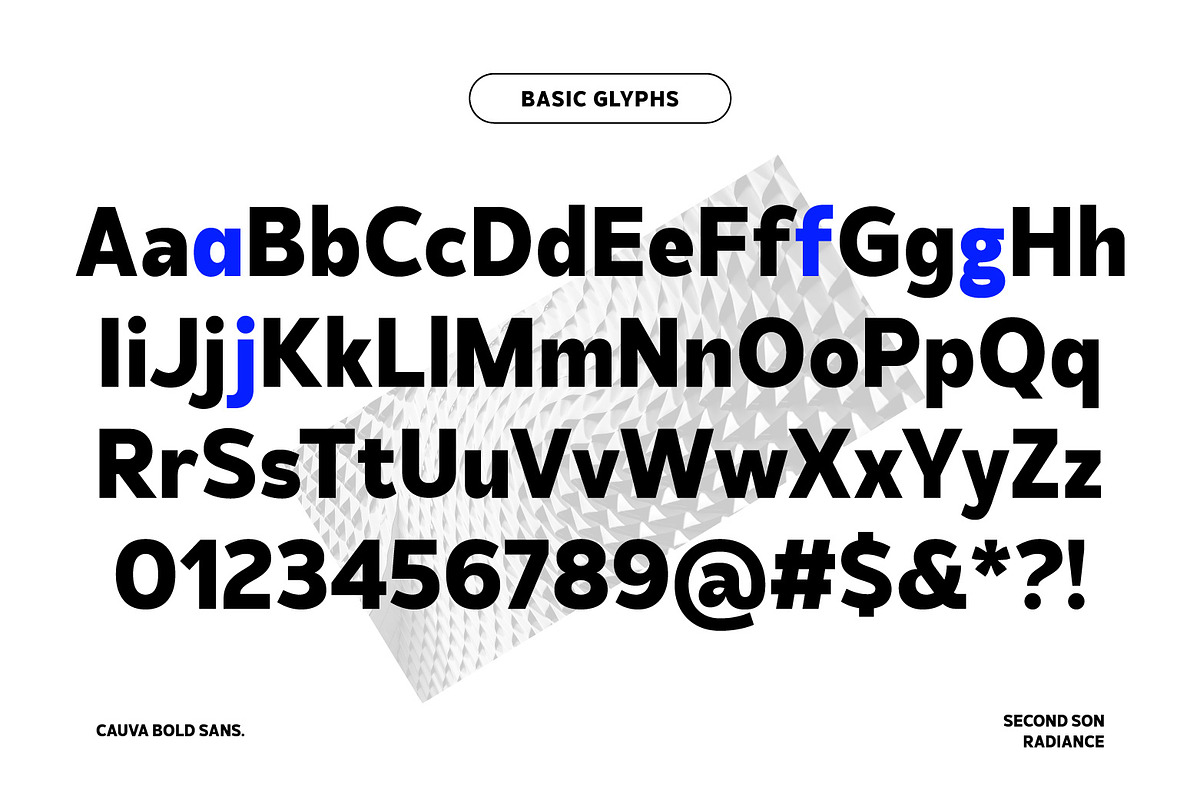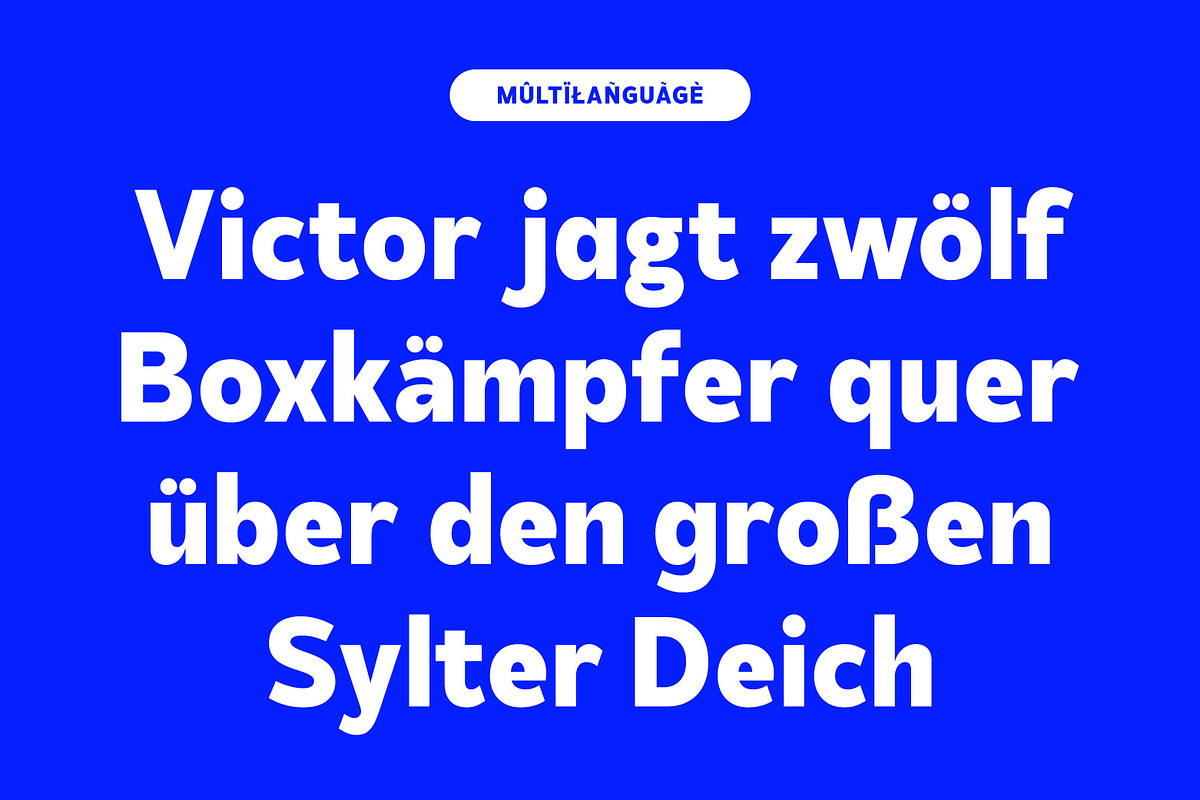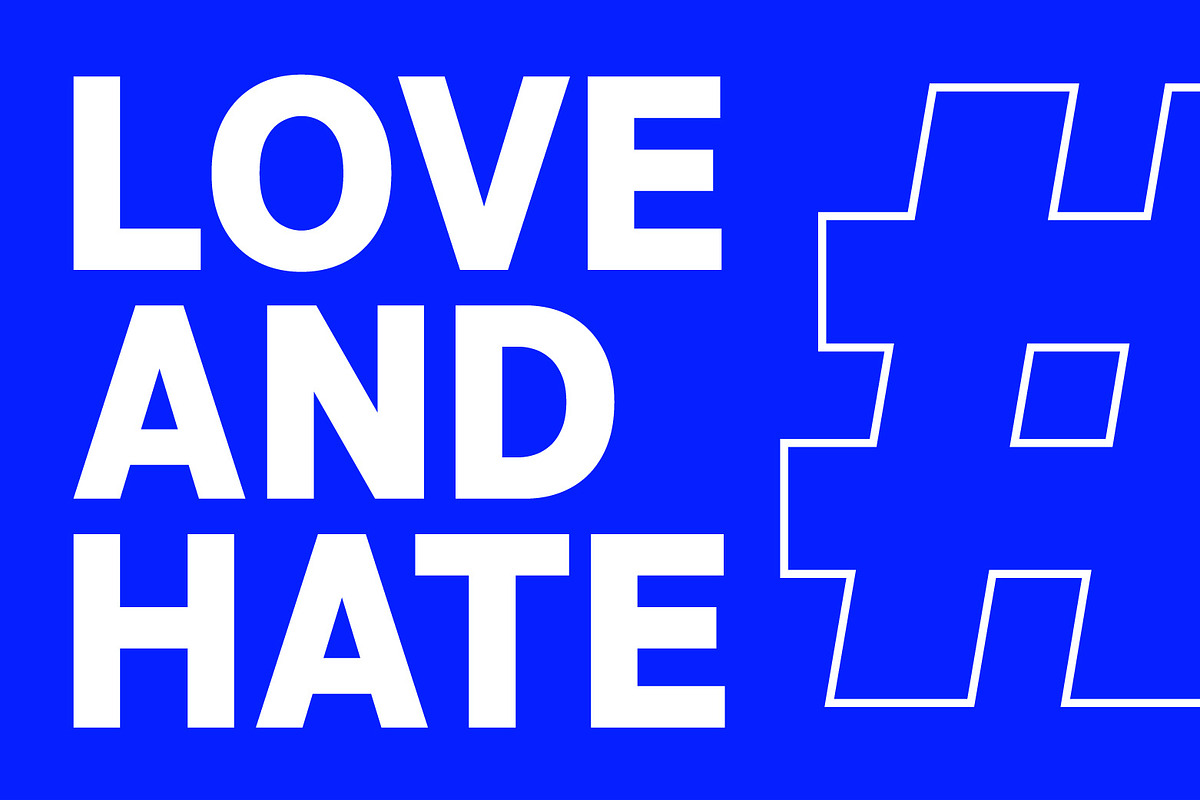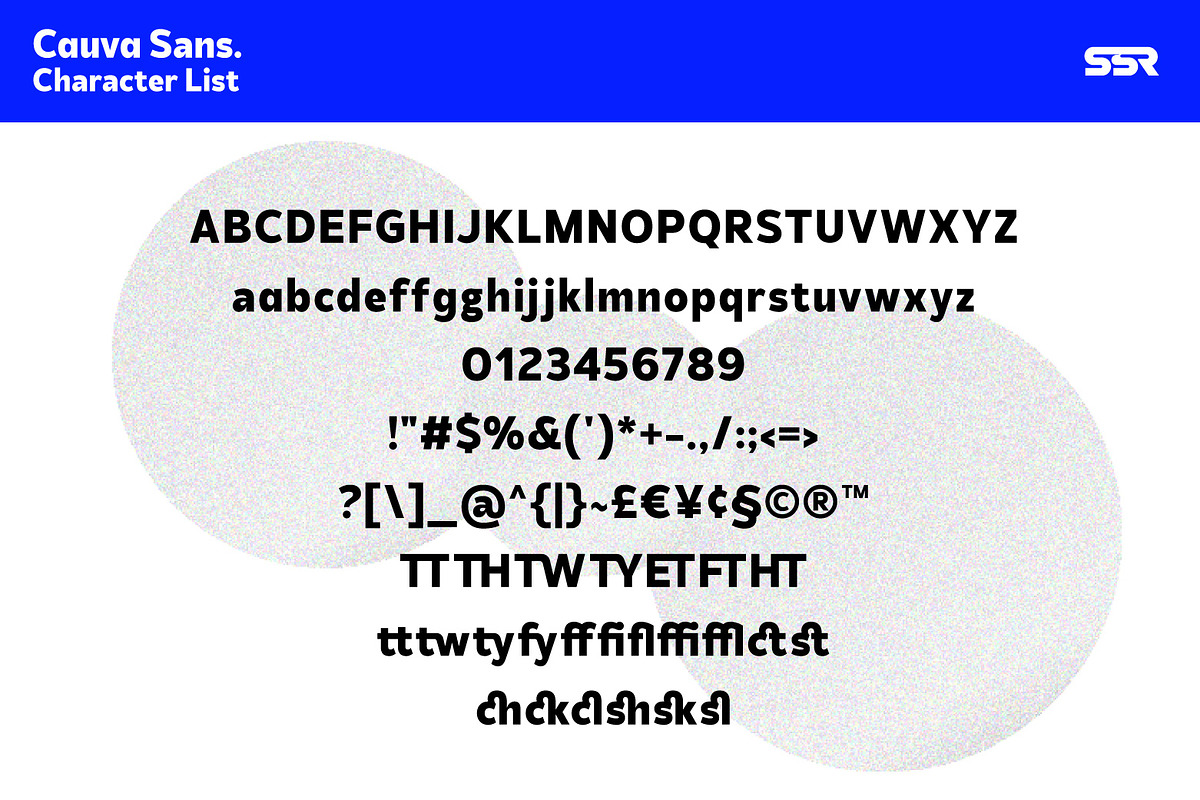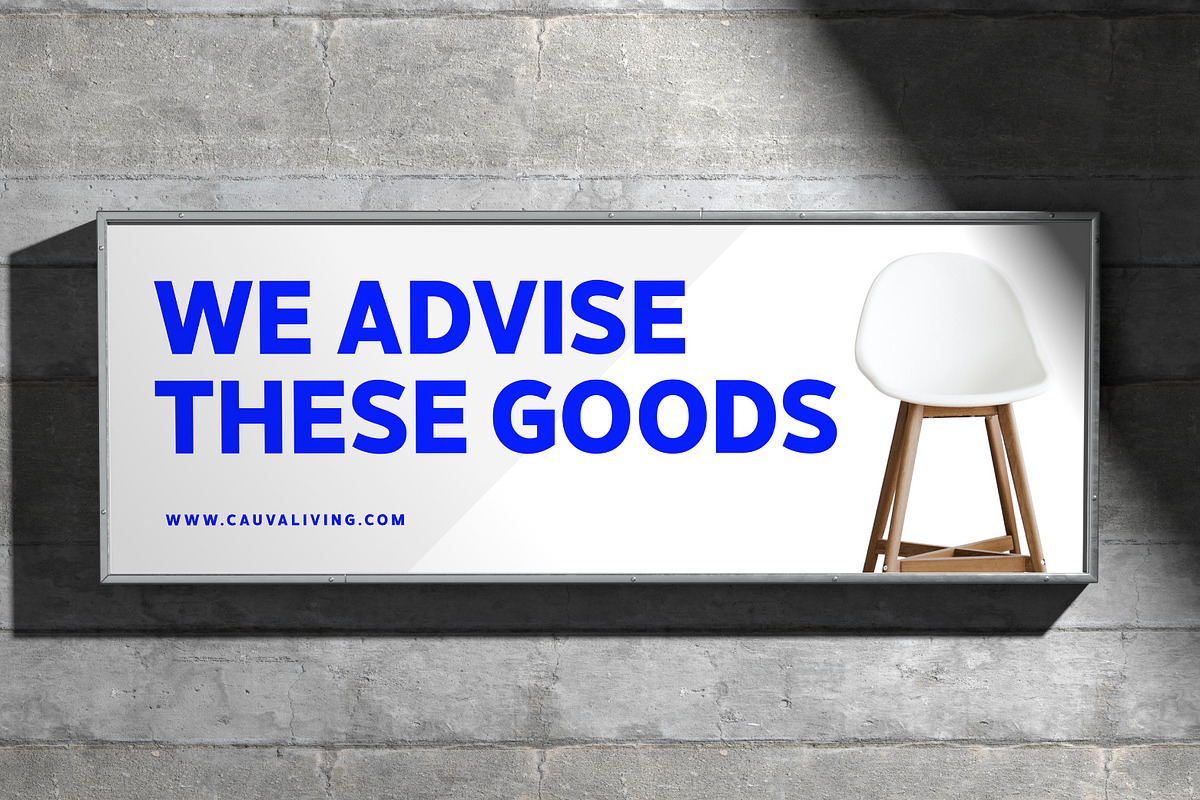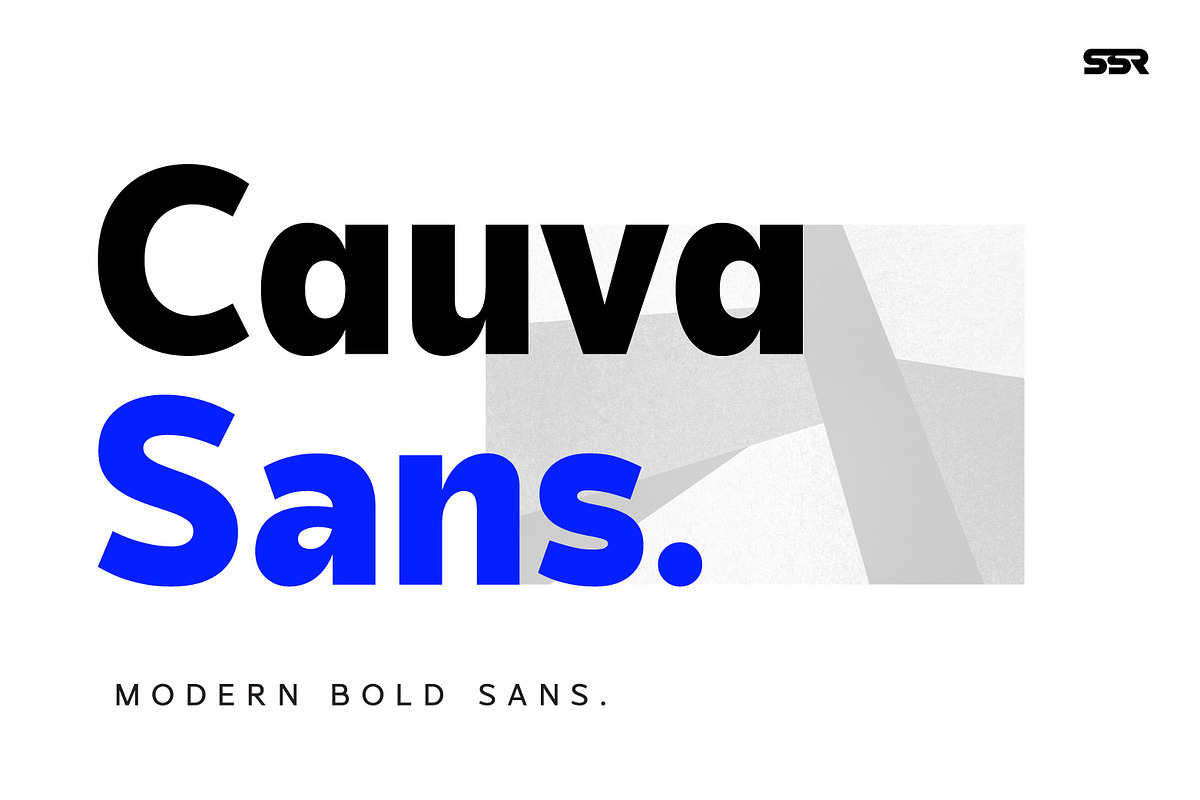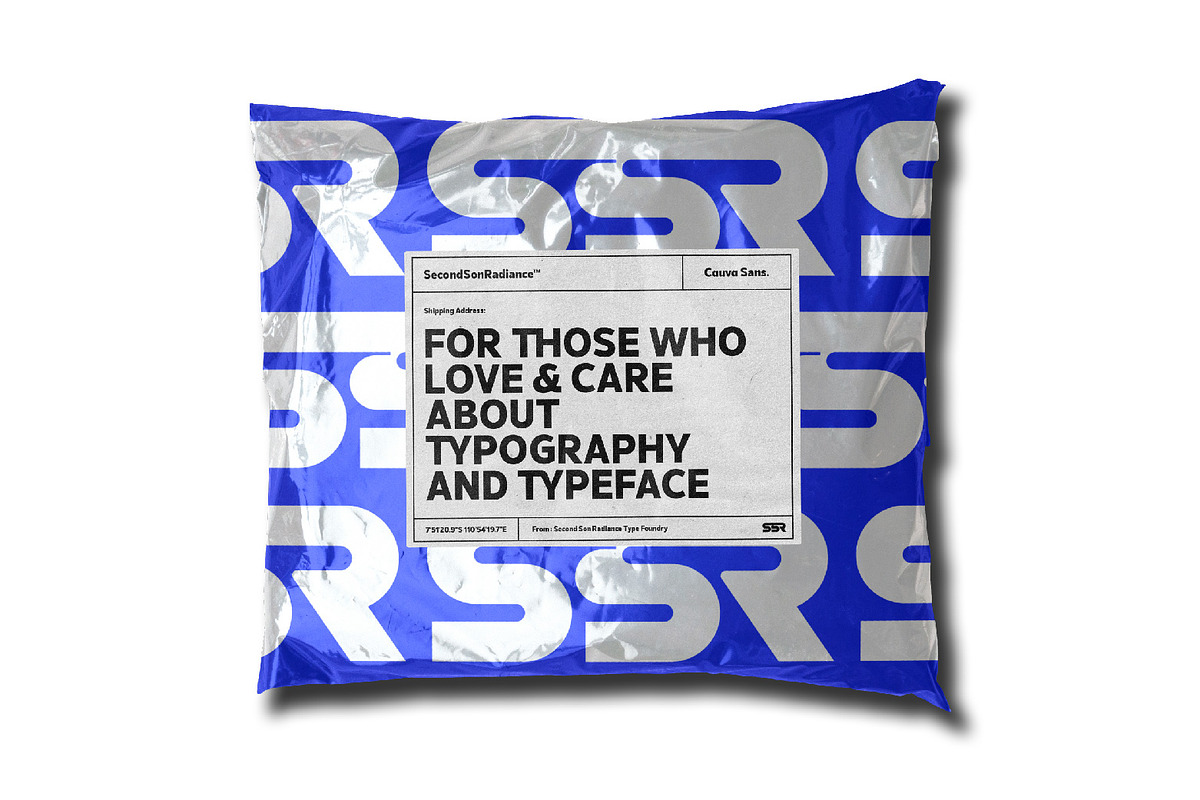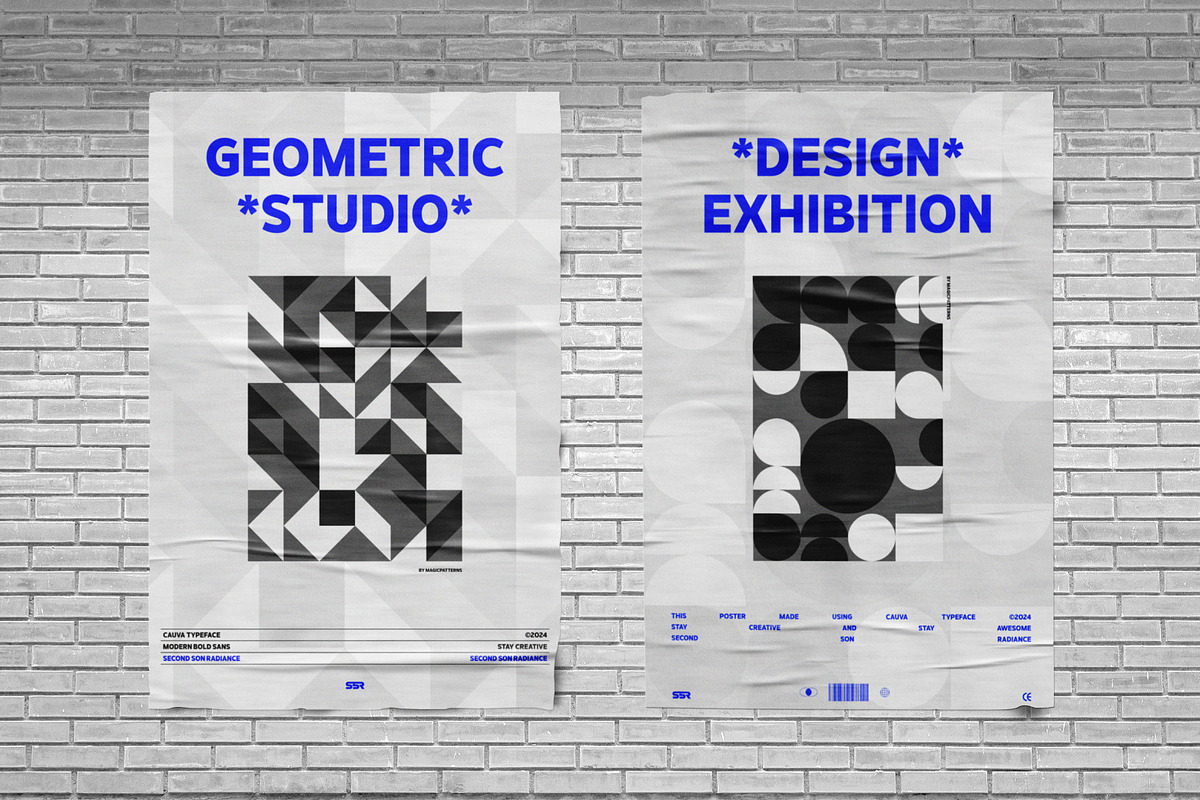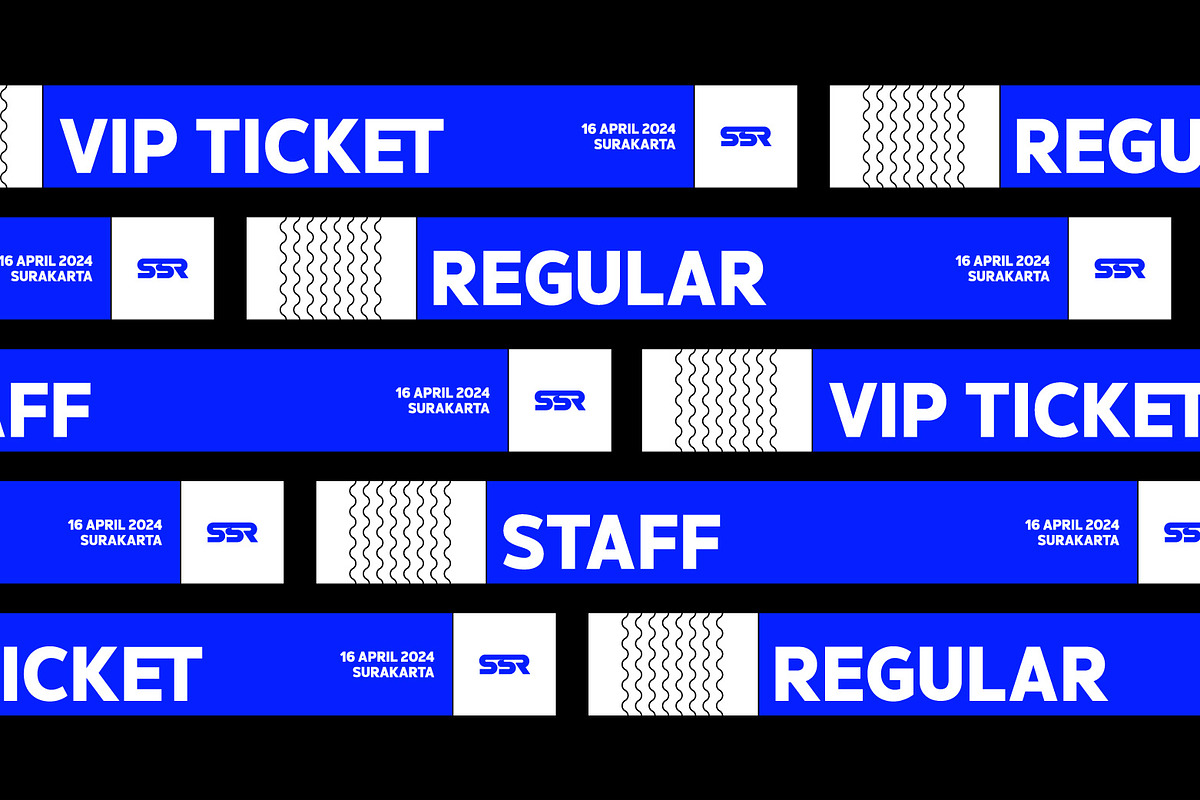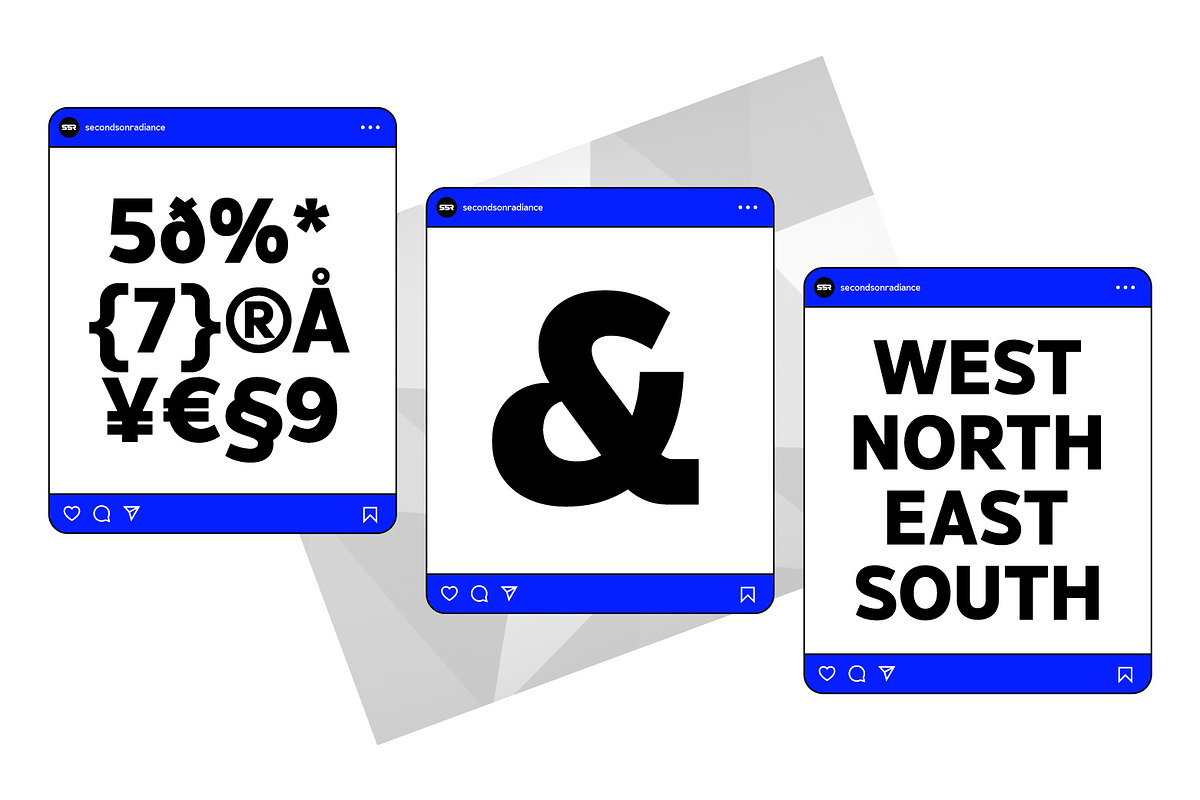
SS Cauva - Modern Bold Sans
Cauva Sans is a Sans Serif font with bold weight with modern and timeless typeface characters. This font is designed to be clear and able to interacts with many people. Coming with clear lines and strong characteristics, this versatile font can be used for various design application such as branding and logo design, product packaging, website design, digital and print advertising, social media graphics, corporate presentations, magazine layouts and headlines, etc. Additionally, multilingual support ensures accessibility across different languages and regions. Crafted with expertise in modern typography, Cauva Sans reflects a mastery of design principles and contemporary aesthetics, ensuring that it meets the demands of today's creative projects.